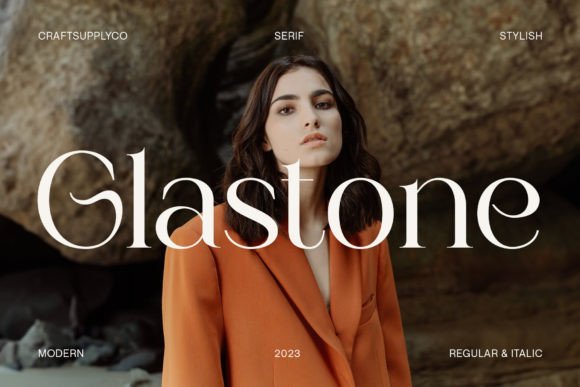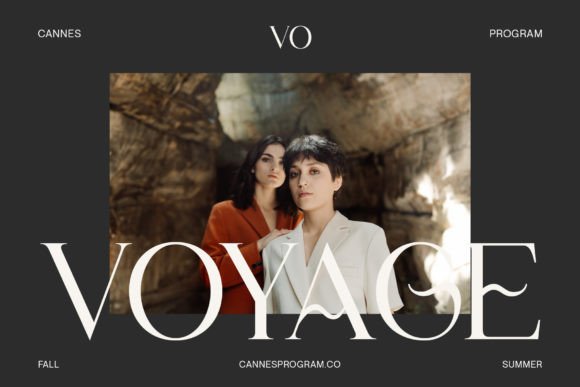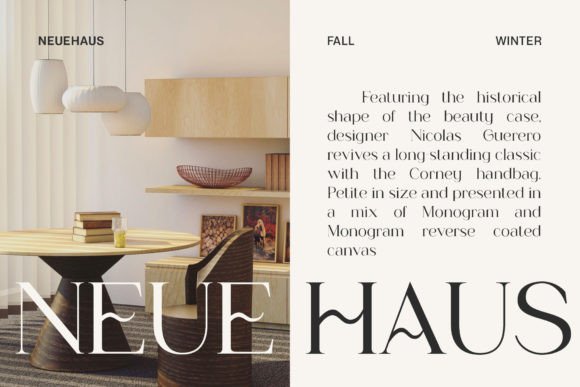
Glastone Font: Modern Serif Typography for Elegant Branding & Logo Design
About the Glastone Font
Get ready to be inspired by Glastone Font, a fresh and dynamic typeface for modern creators. Glastone is a modern serif typeface that seamlessly blends beauty and a feminine touch, infusing a sense of class and contemporary sophistication. Its graceful lines and modern aesthetic make it the perfect choice for projects seeking a balance of elegance and modernity.
This typeface is ideal for greeting card, packaging, brand identity, poster, or any purpose to make your design project look eye catching and trendy. Feel free to play with this typeface!
Glastone’s elegant serifs work best in headlines, short-form text, and branding applications where a touch of refined femininity is desired. It excels in logo design, packaging for luxury goods, and high-end marketing materials. However, its delicate stroke weight makes it unsuitable for body text or UI elements requiring high readability.
Its inherent sophistication is best complemented by pairing it with a clean sans-serif like Open Sans for body copy, or a geometric sans-serif like Futura for a more modern contrast. A playful script font could add a touch of personality to projects requiring a less formal feel.
Glastone projects a sophisticated and modern personality, conveying both elegance and a contemporary sensibility. It is ideal for brands aiming for a premium image and projects focused on aesthetics.
Glastone Font Usage Examples
Glastone Font Example